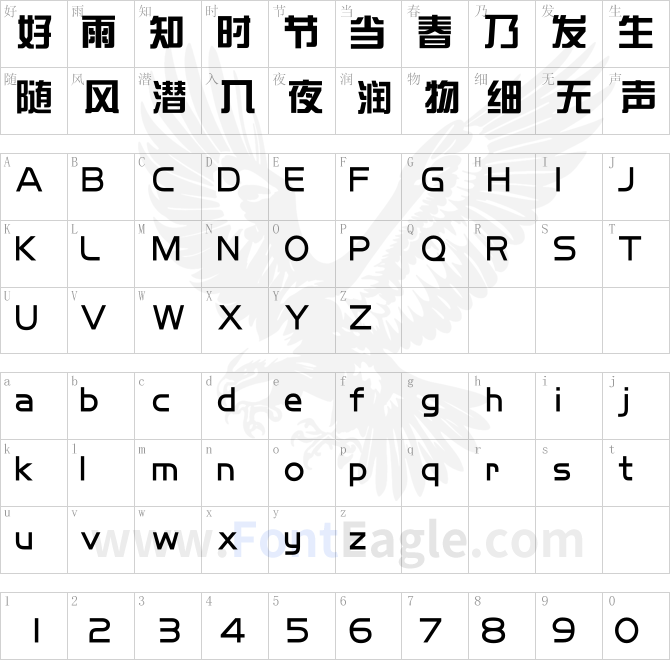
BDZongYi-A001 is a great font, widely used in graphic design, single-page menu design, poster design and other fields, and is deeply loved by designers.BDZongYi-A001 download.